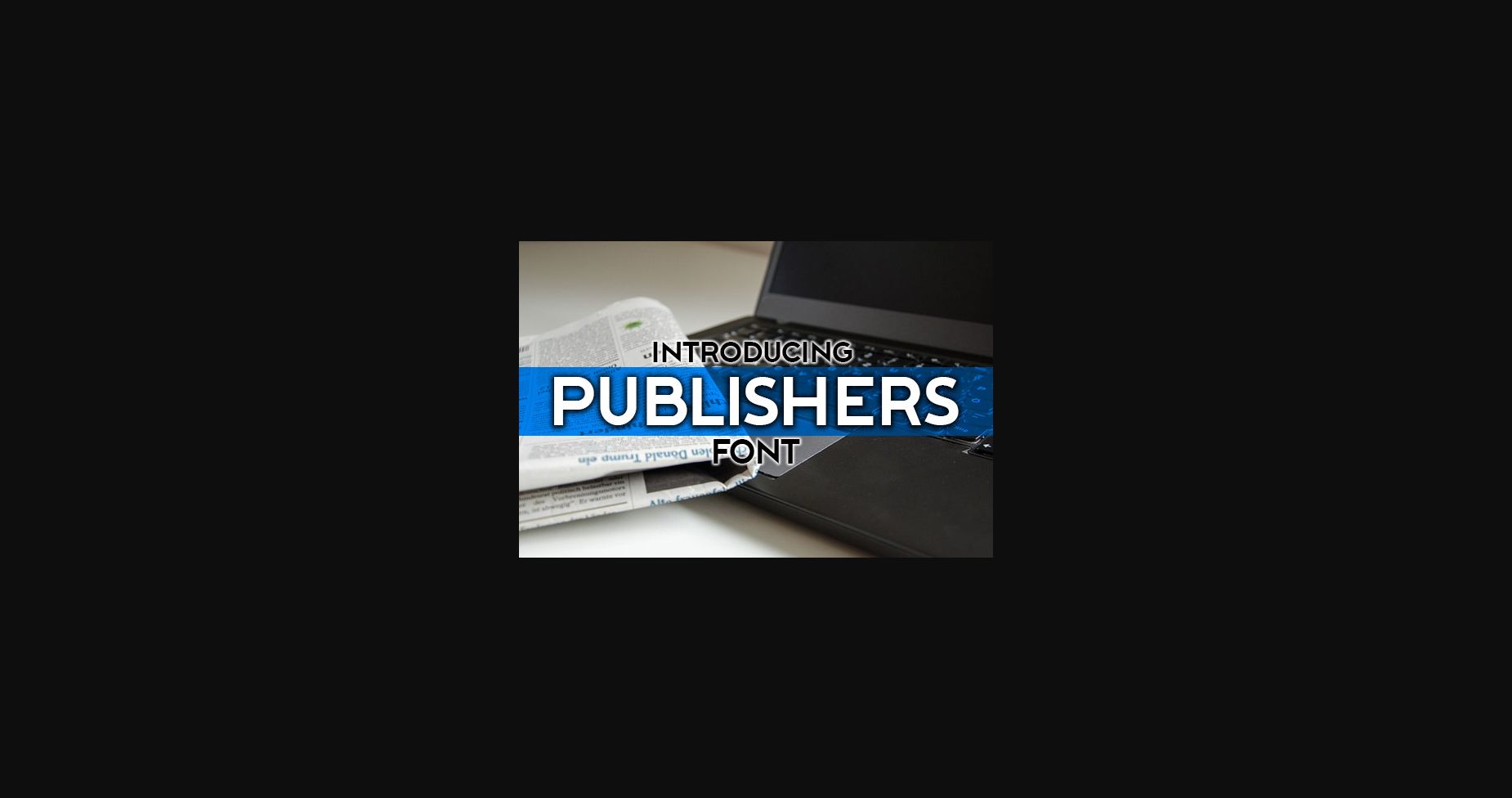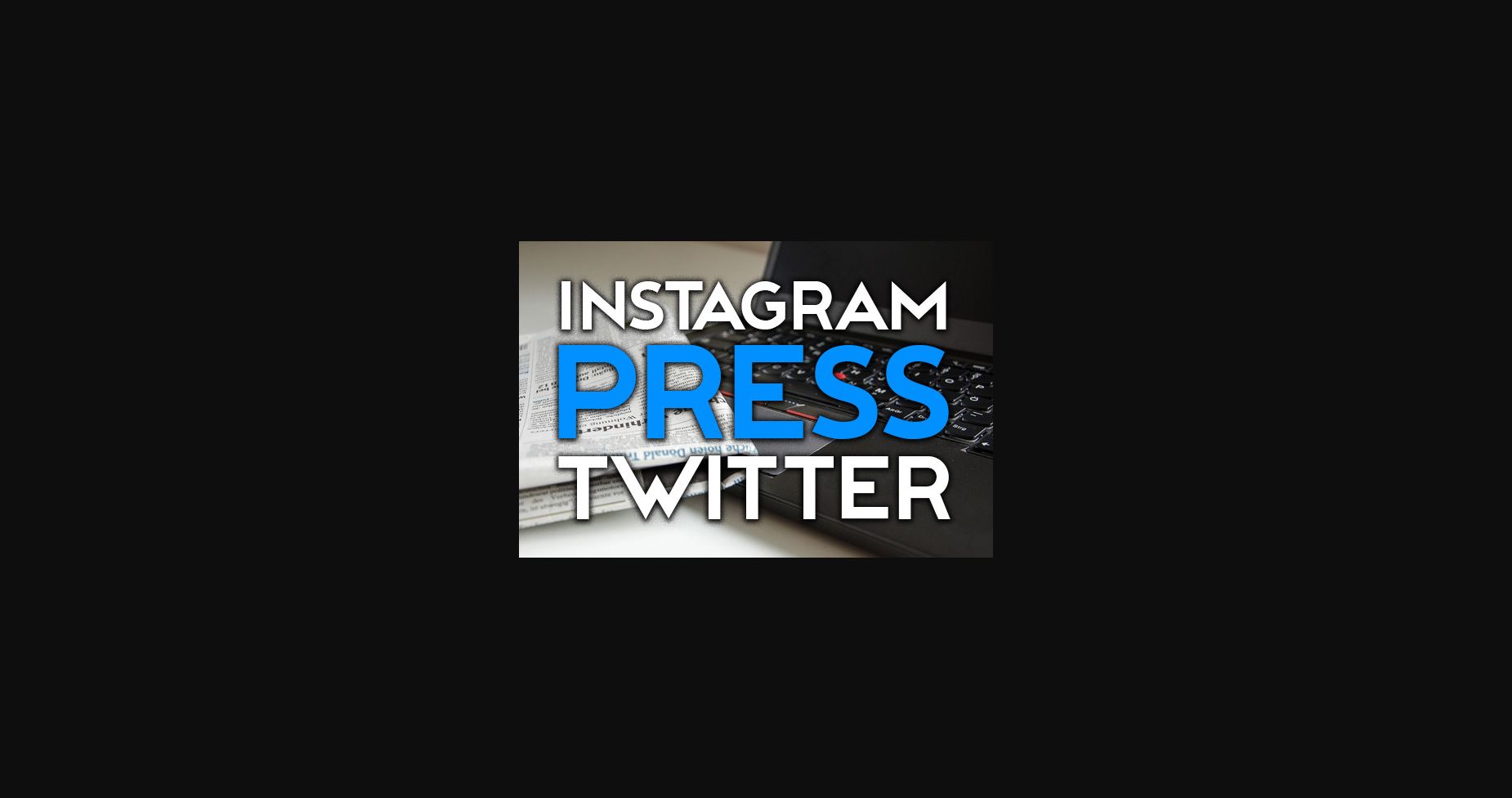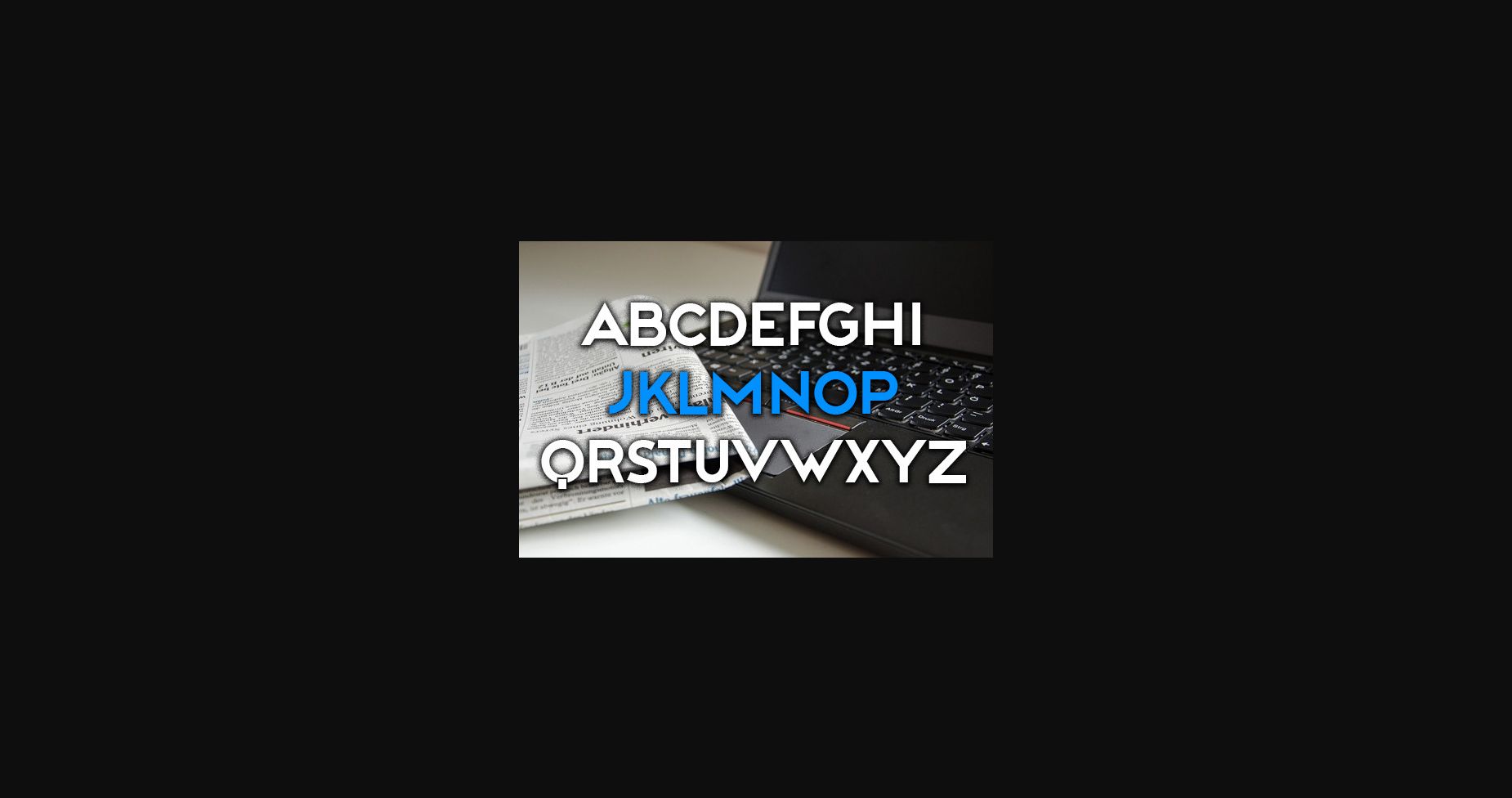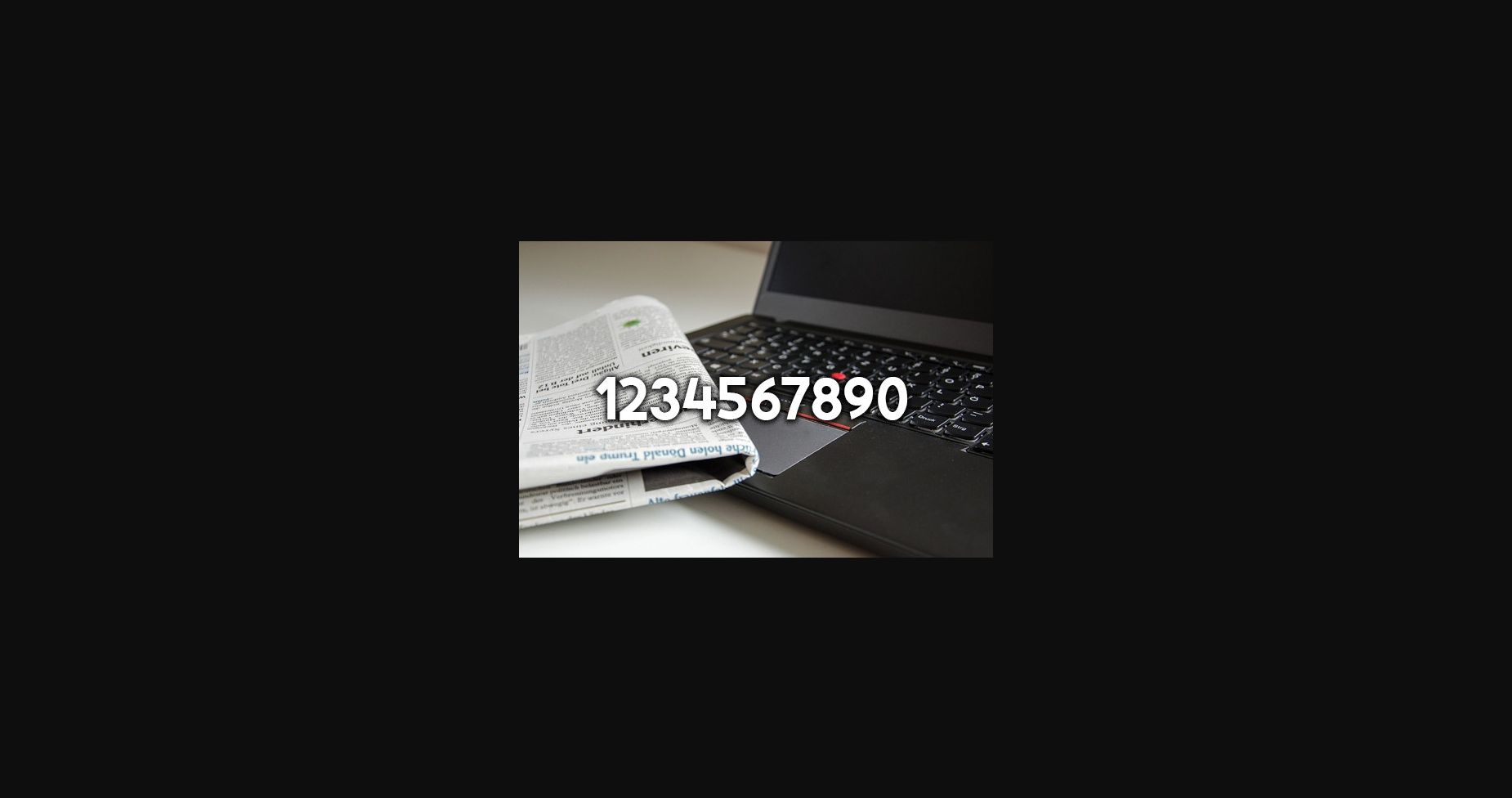
Publishers Font
About Publishers Font
Publishers is a sharp-looking Sans Serif font with curvy lines and an elegant appearance. Use this font on banners, headlines, and t-shirts.